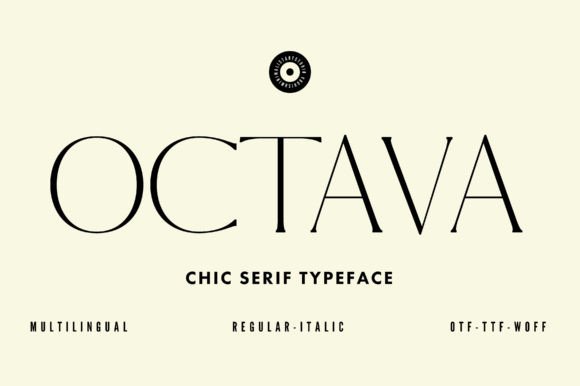
Step into a world of sophistication and style with Octava Font, the epitome of elegance in the realm of typography. This remarkable serif typeface, expertly crafted by Minimalistartstudio, is more than just a collection of letters; it's an artistic expression that transcends the ordinary. Experience the allure of Octava, and let your designs speak volumes with a touch of timeless grace.
Octava Font is a visual symphony that harmonizes classicism with a touch of contemporary flair, making it the perfect choice for discerning creatives seeking a touch of distinction. Its clean lines, delicate curves, and carefully balanced proportions create a captivating aesthetic that will elevate your designs to new heights.
Unleash your creativity and explore the boundless possibilities that Octava Font offers. Whether you're designing captivating logos for your clothing brand, crafting elegant invitations for special occasions, or creating visually stunning social media graphics, Octava Font will effortlessly elevate your work with its timeless allure.
Indulge in the luxury of Octava Font and watch your designs transform into masterpieces. Embrace the elegance, embrace the sophistication, embrace the Octava experience.